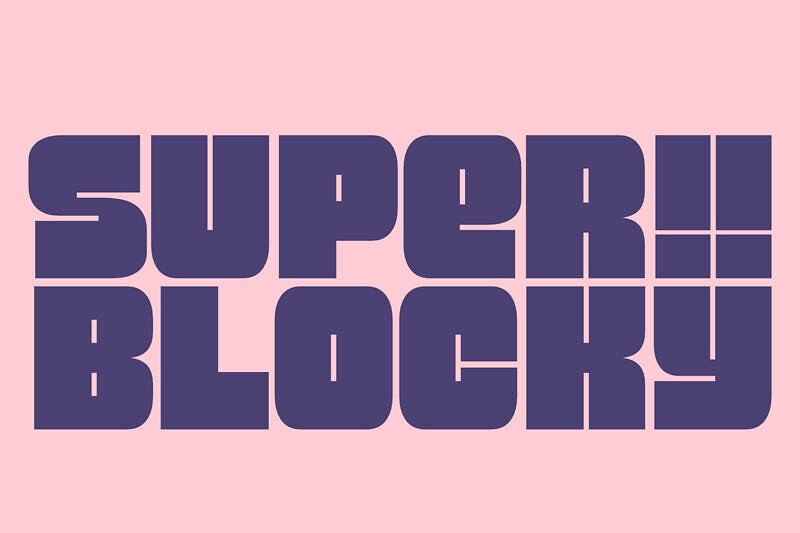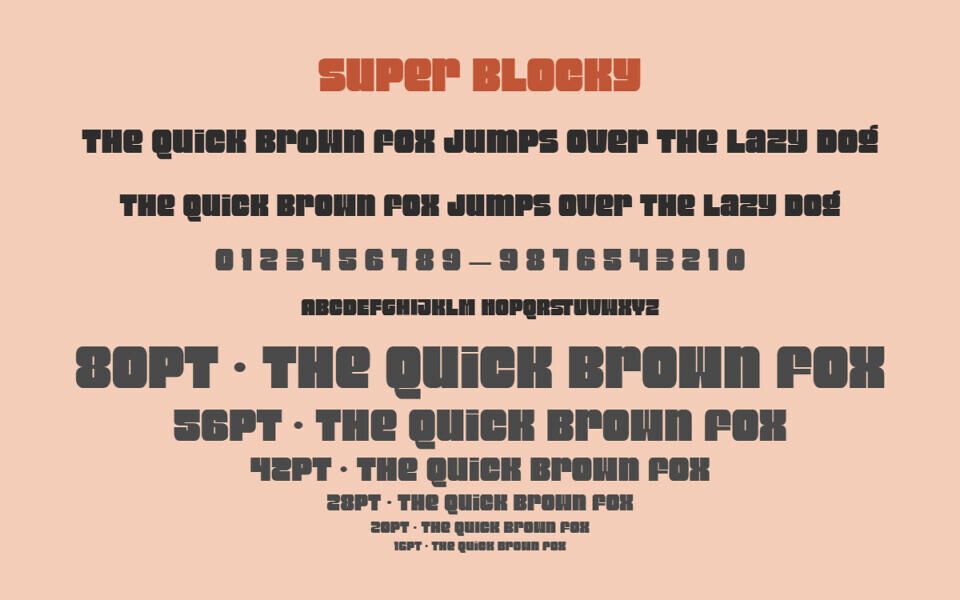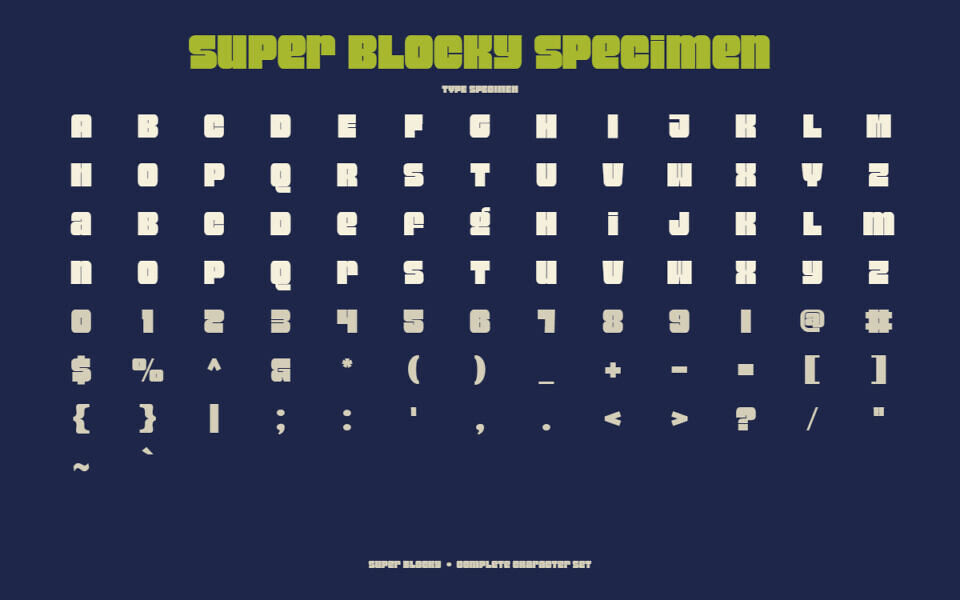
Super Blocky Font
Super Blocky is a bold display font with thick, square letterforms and a strong geometric structure. Its chunky shapes and solid strokes create a playful, eye-catching look that works well for headlines, posters, logos, and gaming or cartoon-style designs.
The heavy block style gives text a powerful visual impact while maintaining clear readability. With its modern yet retro-inspired aesthetic, Super Blocky is ideal for creative projects that need a fun, energetic, and highly noticeable typography style.